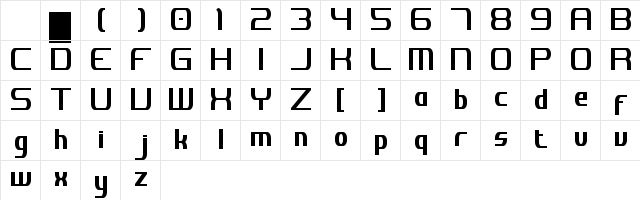
Complete JH_Digital Nominal glyph index. Displaying only characters natively supported by JH_Digital Nominal font.
JH_Digital has a distinctly futuristic character, with geometric precision and clean angles that feel at home in technology, gaming, and sci-fi contexts.
Pro Tip: Try JH_Digital with generous letter-spacing in UI labels and navigation - the geometric forms benefit from room to breathe.